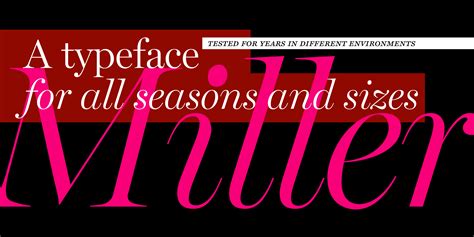
Miller Display Font
Miller Display Font - Miller, designed by matthew carter, is a “scotch roman,” a class of sturdy, general.
Miller, designed by matthew carter, is a “scotch roman,” a class of sturdy, general.